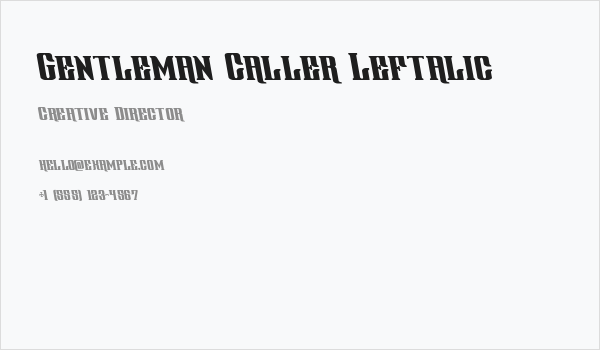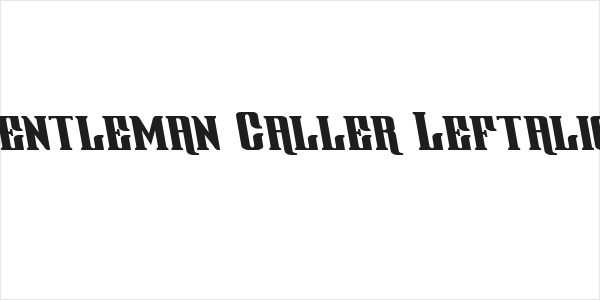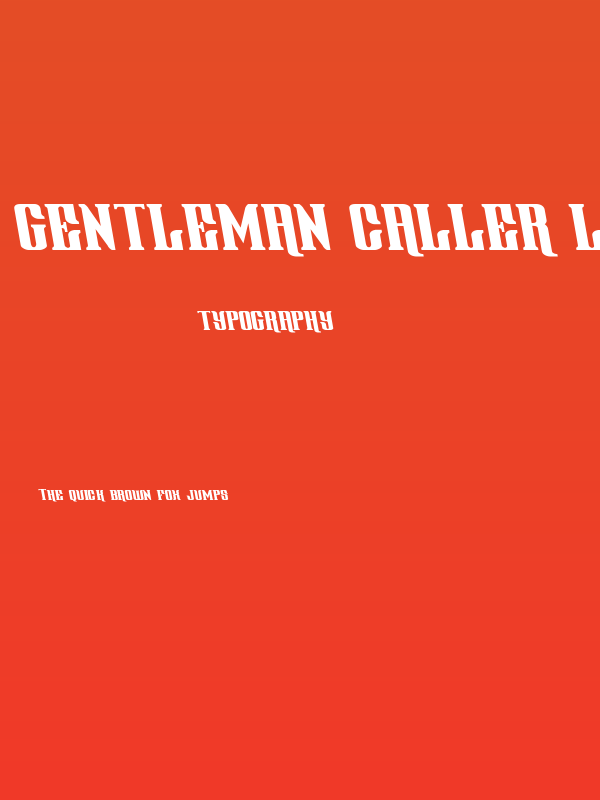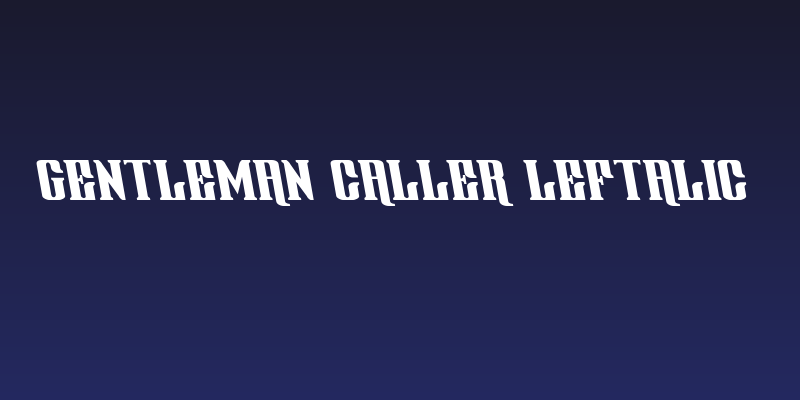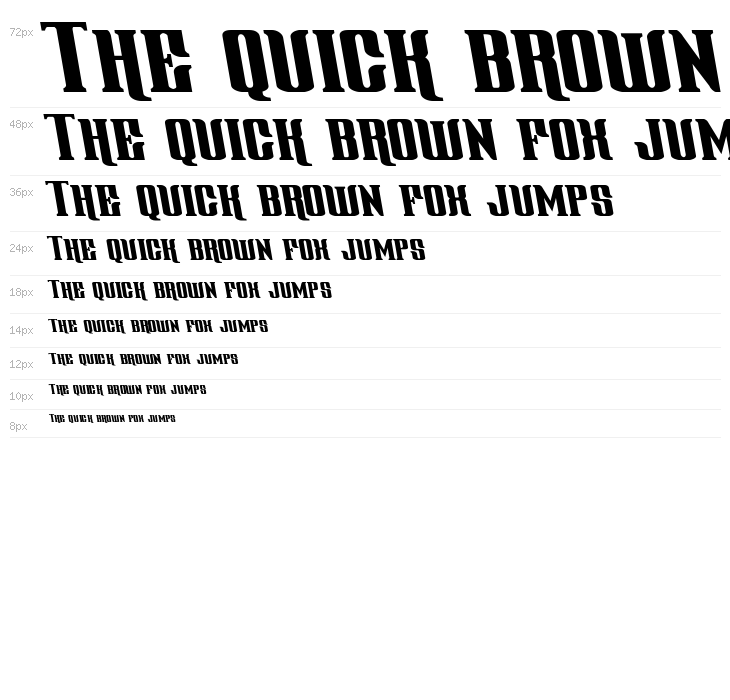
Gentleman Caller Leftalic Font
Gentleman Caller Leftalic Description
This font features a bold and dynamic style with a distinct left-leaning slant, giving it a unique and eye-catching appearance. The characters are robust and have a strong presence, making them suitable for impactful designs. The uppercase and lowercase letters maintain a consistent width, while the numbers and special characters are designed to complement the overall aesthetic. The font's boldness and slant add a sense of movement and energy, making it ideal for projects that require a strong visual impact.
| Proposed Projects | Ideal for posters, branding, headlines, and any design requiring a strong visual impact. |